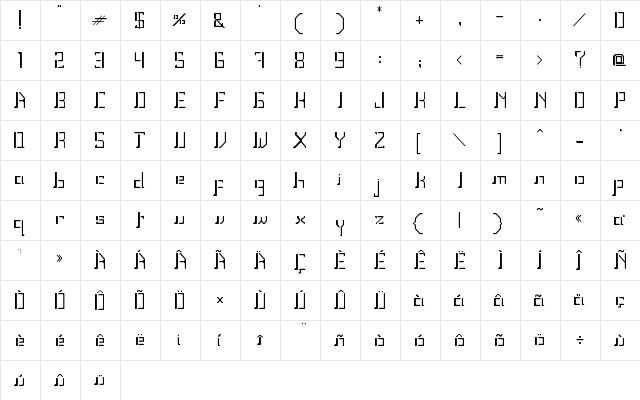
NewPort Regular
| Designer | Barbara, Carlos,Gabriel, Helder, Marlene |
Design Context for NewPort Typeface
NewPort is a composed and adaptable typeface that performs quietly and consistently across a wide range of design contexts.